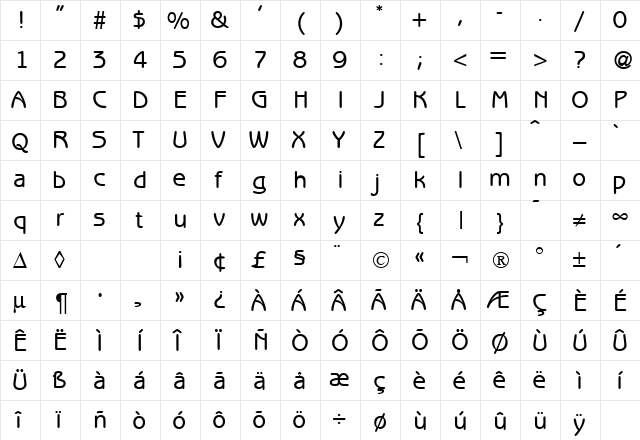
BenjaminSansMedium Regular
Design Context for BenjaminSansMedium Typeface
BenjaminSansMedium is a composed and adaptable typeface that performs quietly and consistently across a wide range of design contexts.